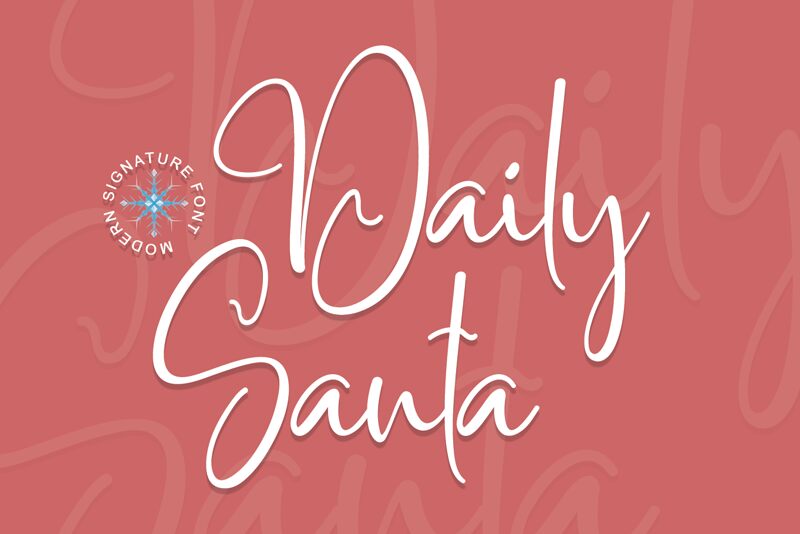
Daily Santa
Daily Santa font is an elegant and expressive free calligraphy font designed by Erik Studio. With a modern script style that reflects a handwritten approach, this typeface brings fluid motion and artistic flair to your projects. Its casual elegance offers both charm and sophistication in each letter, allowing designers to seamlessly incorporate creativity into all designs.
Use Daily Santa for poster design, upscale packaging, and clothing items like T-shirts. Create eye-catching magazine titles or logos that are immediately noticeable in addition to book covers and unique coffee shop menus. Use the calligraphy style as well for greeting/thank you cards or wedding/celebration invitations that reflect an artistic approach.